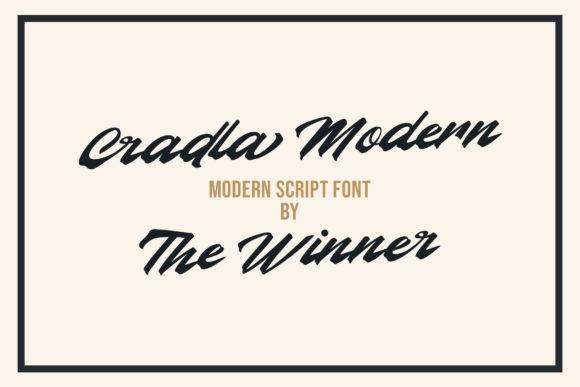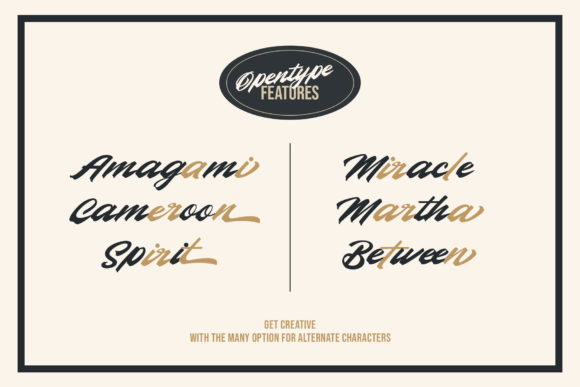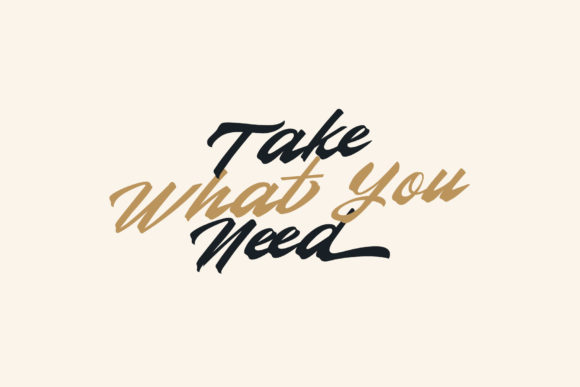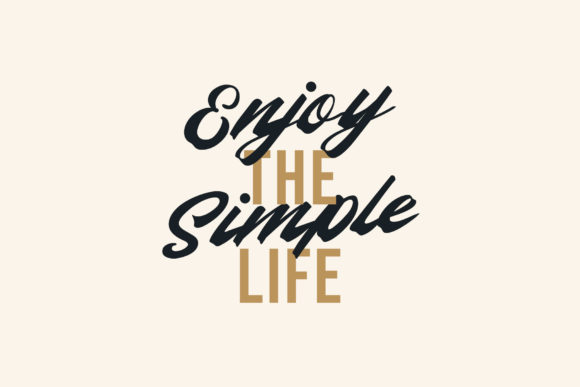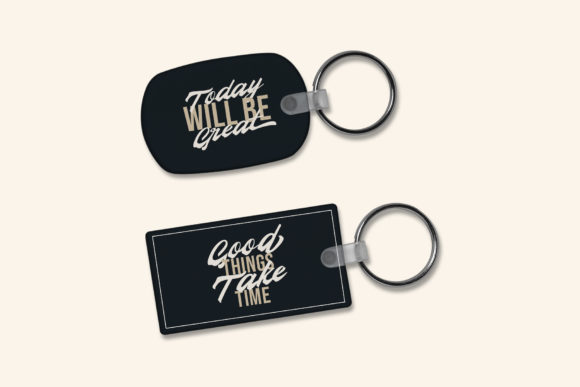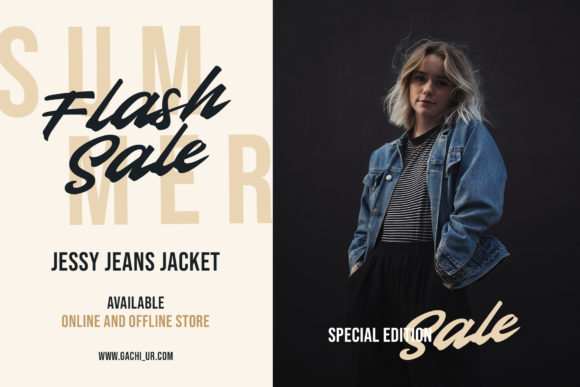
The Designer’s Delight: Cradla Font
Have you ever been in the middle of a design project, and suddenly, you’re stuck on finding the perfect font? I recall a recent experience where a client’s request for a “modern, elegant script font” sent me on a wild goose chase through my font library. That’s when I stumbled upon Cradla, a stunning modern script font that instantly elevated my design game.
An Honest Review of Cradla Font
Cradla has quickly become a favorite in my design arsenal, and for good reason. Here’s what I love about it:
- ✨ Elegant and Modern: Cradla boasts a sleek, contemporary look that’s perfect for branding, product packaging, and more.
- ✅ Versatile: This font is incredibly versatile, suitable for invitations, quotes, T-shirts, labels, posters, logos, and any design project you can think of.
- 💫 Attractive and Outstanding: Cradla adds a touch of sophistication to any design, making it stand out from the crowd.
While Cradla is an excellent font, it’s not without its quirks:
- 🤔 Limited Use in Small Sizes: Cradla’s intricate details can get lost when used in very small sizes, so it’s best used for larger design elements.
- ⚠️ Requires Careful Kerning: As with many script fonts, kerning can be a bit tricky, especially when using Cradla for body text.
- Experiment with OpenType features like ligatures and stylistic alternates to add personality to your text.
The Backstory of Cradla Font
Cradla was designed with the intention of creating a modern, elegant script font that could be used across various design projects. Inspired by the flowing lines of handwritten scripts, Cradla’s designer aimed to craft a font that exudes sophistication and style. Whether used for branding, packaging, or personal projects, Cradla is sure to make a statement.
| Font Name | Cradla Font |
| Author | The1stWinner |
| What is Cradla Font best used for? | Cradla Font is best used for designs that require a modern, elegant script look, such as branding, product packaging, invitations, and more. |
| Is Cradla suitable for body text? | While Cradla can be used for body text, it’s recommended for larger text sizes or headings due to its script nature and potential kerning challenges. |
In conclusion, Cradla Font is a versatile and elegant modern script font that’s perfect for designers, crafters, and creative hobbyists looking to elevate their design projects. With its sophisticated look and wide range of applications, Cradla is sure to become a staple in your font library.